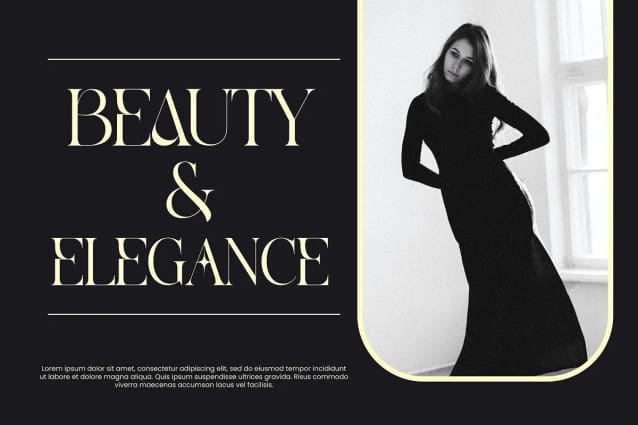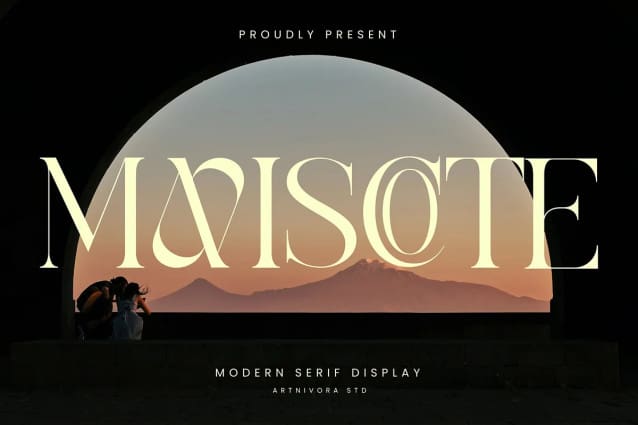
Maviscote Font
Maviscote Font, a simple and modern serif font. So perfect for you who needs a typeface for logo designs, magazine, social media, brochure, and many more.